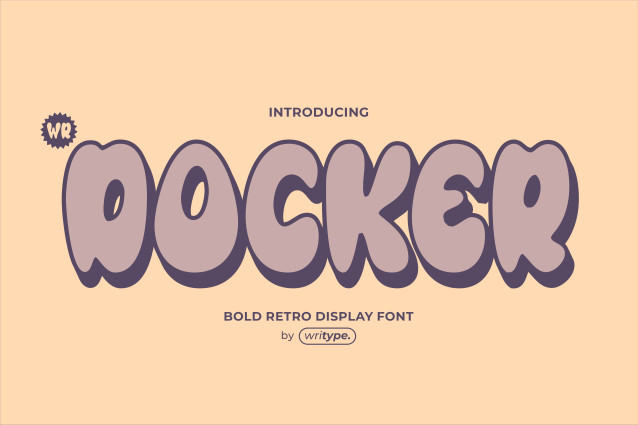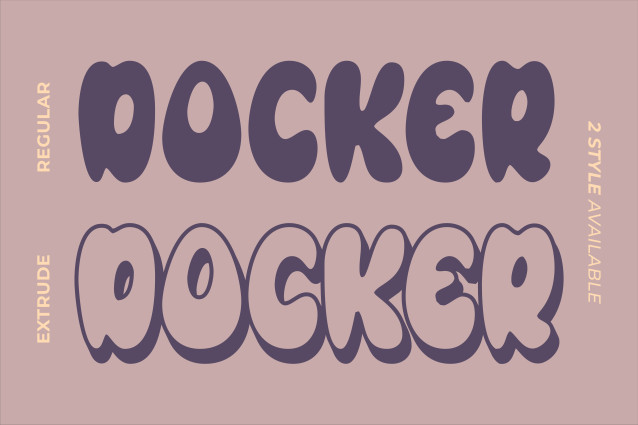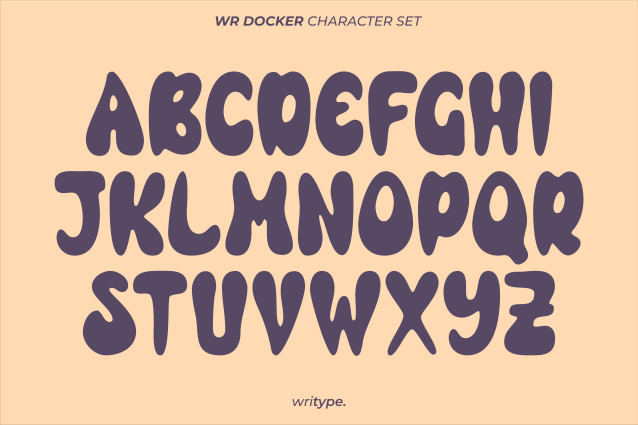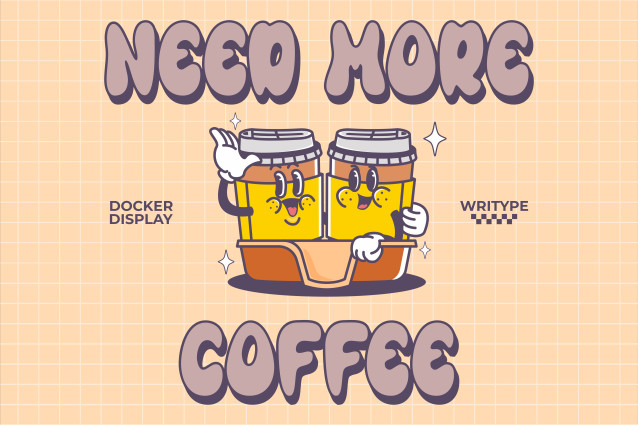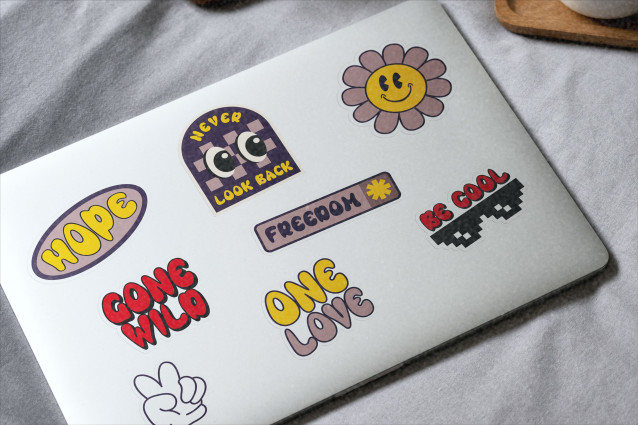
WR Docker Font
WR Docker Font is a chubby hand-drawn font with a fun and bold personality, available in Regular & Extrude styles. Perfect for branding, logos, and posters, it adds a playful yet strong touch to any design. Stand out with its lively and dynamic look!